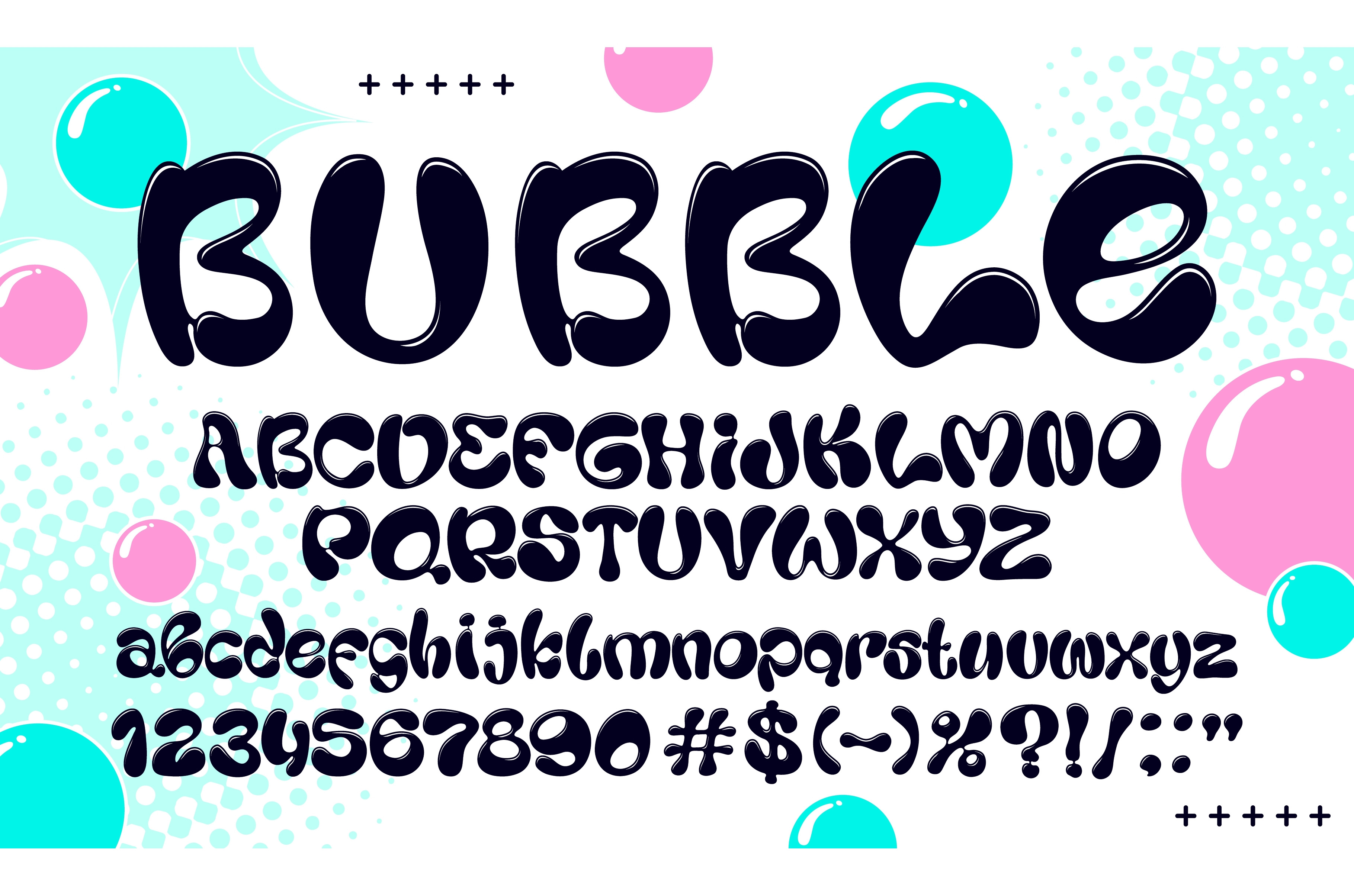
Funky liquid bubble font, groovy
Funky liquid bubble font, groovy wavy type typeface, Y2K alphabet. Y2k bubble vector font, liquid ink typeface. Inflated or funky rounded English alphabet typeset letters, numbers and typography marks